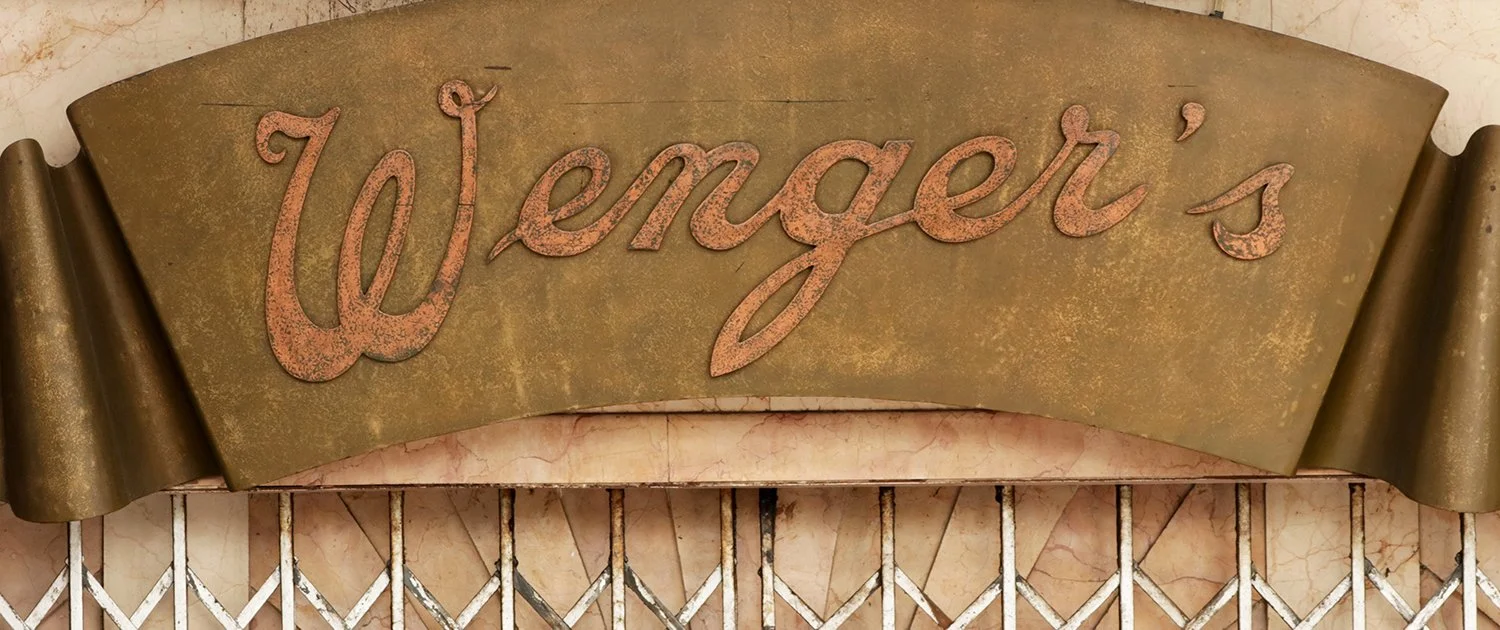
Greetings! This month, I spy with my typographic eye a conversation about multi-script lettering. I’m excited to share a short case study of a project I worked on this year, drawing custom Devanagari and Gurmukhi logotypes for a local business. And for a visual treat, scroll all the way down for a small collection of nameplates from Punjabi newspapers.
For some years now, I have tried and failed to devise a type walk in and around Connaught Place. It not a lack of interesting signs, but largely a challenge of space and time. The signs I would like to talk about are simply too scattered in the neighbourhood, and some, well, don’t even exist anymore. And so, until I find a way to time travel (maybe some new experiments with augmented reality?), or identify more signs within a smaller area to make this a viable idea, I am at an impasse. Or I was. Because hey, why not a photo essay for this newsletter instead.
If you’d like to use this essay to map a type walk of your own, I share below the route I would take if I were you. You’ll cover upwards of five kilometres, and early mornings are a great time to catch the market without its characteristic crowds, and in tolerable weather.
To Connaught Place!
For the uninitiated, Connaught Place is a commercial and shopping centre in Delhi, that was built as part of the imperial capital of New Delhi by the British. Space for Connaught Place was earmarked in 1913, a couple of years after George V announced the transfer of the country’s capital from Calcutta to Delhi, and its preliminary designs were drawn up by W.H. Nicholls, with additions by his successor, Robert Tor Russell. It continues to be a bustling marketplace today. I find the juxtaposition of the new and old, and how the place was used first by the British and then the Indian state, very fascinating, and reflected in the letters one sees there. I won’t go into the story of how Connaught Place came to be, and go straight into painting a typographic picture of the neighbourhood, but if you’re interested, Swapna Liddle’s Connaught Place and the Making of New Delhi is a great introduction to the subject.
The Eastern and Western Courts
For as long as I remember, I’ve been intrigued by the twin façades of The Eastern and Western Courts (location), which flank Janpath a little before the art deco hotel, The Imperial, as one approaches Connaught Place. Designed by Russell and built in the 1920s, both were intended to serve as hostels for visiting legislators when assemblies were in session, though The Eastern Court was sold to the Post and Telegraph Department soon after. Today it houses the offices of Mahanagar Telephone Nigam Limited (MTNL). The buildings’ signs, which I want to show you, aren’t always the easiest to see because they play hide-and-seek with the person on the street due to the dense tree cover in front of them.
I visited this summer, and on the encouragement of a couple of MTNL staff I met outside, I ventured inside the gates of The Eastern Court, and took these pictures. No such luck at The Western Court, and so here is an image of the building and sign from 2008, by photographer Stuart Forster.
More so than any other sign in the very immediate neighbourhood, these letters are an imprint of British colonial rule in India, and the image that the British must have hoped to exude in their newly-built imperial capital. The letters are classical in style, like the buildings’ architecture, and no doubt intended to convey majesty and stateliness. To me, they look dwarfed due to their scale and placement, especially in photographs, and any affect they may have is diminished as a result. Call it my keen eye, or my ambivalence towards imposing colonial structures, but features like the the emaciated leg of the R, or the unseemly letter spacing around the T, make the overall appearance somewhat naïve.
On this trip, I was happy to get a good look at the Central Telegraph Office sign too. This is likely not the original sign, since this photograph of the building from 1947 shows an altogether different one, and at a different location. I had never paid that much attention to it because until now, I hadn’t ever managed to see it properly. Its stubby, bracketed serifs, chopped-off spur of the G and extra wide word spaces (like the building signs) are worthy of their own close-up.
Modern High School
Still in the periphery of Connaught Place proper, now move two radials east to Barakhamba Road to yet another pre-Independence building, that of the Modern High School (location). It stands on land that was originally set aside for relocating Delhi University to (a plan shelved due to expense), and which was allotted to the school in 1930, a decade after it was founded in nearby Daryaganj. The building, which was completed in January 1933, was designed by C.G. and F.B. Blomfield, and its construction supervised by Sobha Singh.
The sign is installed at ground level. Its elegant uppercase letterforms have high contrast, sharp serifs, and despite wear and the damage to the D, still look commanding. In the school emblem, the name is set in something that looks very much like Gill Sans (released by Monotype in 1928); and the motto, in Devanagari, has a broken headline, a style that I’m quite partial towards. Don’t miss the ल — which is in the regional form that is usually associated with the “Bombay style”, and today, with a Marathi preference.
Office and shop fronts
Once at Connaught Circus, it is as simple as walking in a circle snaking in and out of the outer, middle and inner circles. My advice would be to take a left first to see the sign for The Tribune (location) in N block, and then retrace steps to go counter-clockwise, ending up in A Block.
The Tribune sign interprets the blackletter nameplate of the eponymous English-language newspaper, and it is painted on stone. The newspaper was founded by Sardar Dyal Singh Majithia in Lahore in 1881. The sign is not the same as the currently used nameplate, and appears to bear more resemblance to older designs, like the one on this edition from 1931. The Tribune also has two sister publications. One of them is Punjabi Tribune, which you might remember from last month’s edition.